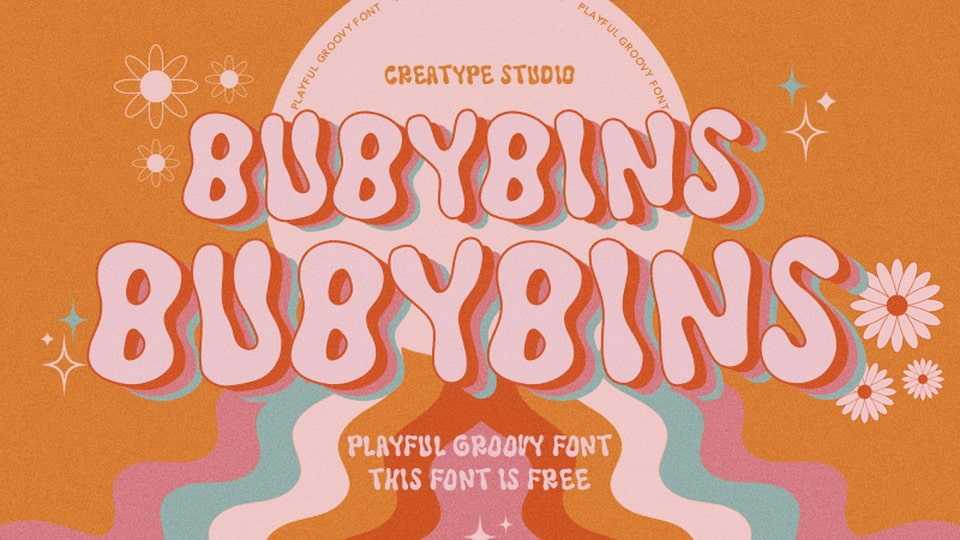
Download Bubybins font, a playful hand-drawn typeface bursting with personality and joy. Its bubbly, rounded letterforms bring an irresistible charm.